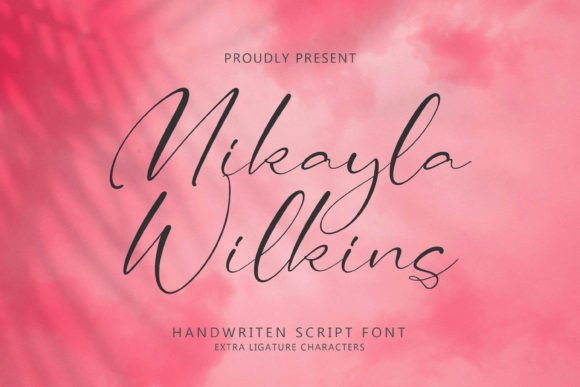
Dive into the world of Mikayla Wilkins, a captivating handwritten script font that transforms your designs into works of art. Crafted with meticulous attention to detail by integritypestudio, this font captivates with its flowing curves and enchanting letterforms. Whether you're a seasoned designer or just starting your creative journey, Mikayla Wilkins is the perfect companion for your projects.
Unleash your imagination and let Mikayla Wilkins take center stage in your logos, branding endeavors, homeware designs, product packaging, and more. Its versatility knows no bounds, extending to mugs, quotes, posters, shopping bags, t-shirts, and beyond. Add a touch of elegance to book covers, name cards, invitation cards, greeting cards, labels, and photography. Mikayla Wilkins leaves a lasting impression, making it ideal for watermarks and special events.
Immerse yourself in the exquisite beauty of Mikayla Wilkins. Its intricate details add a touch of sophistication to any project, while its flowing script evokes a sense of timeless elegance. Let Mikayla Wilkins elevate your designs, captivating your audience with its charm and grace.
Mikayla Wilkins is the perfect font for adding a personal touch to your creative projects. Its handwritten style brings a sense of warmth and authenticity to your designs, making them stand out from the crowd. Whether you're creating logos, branding materials, or simply adding a touch of flair to your personal projects, Mikayla Wilkins is sure to leave a lasting impression.
Elevate your designs with Mikayla Wilkins, the script font that captivates hearts. Its timeless beauty and versatility make it a must-have for any font collection. Experience the magic of Mikayla Wilkins today and unlock a world of creative possibilities.